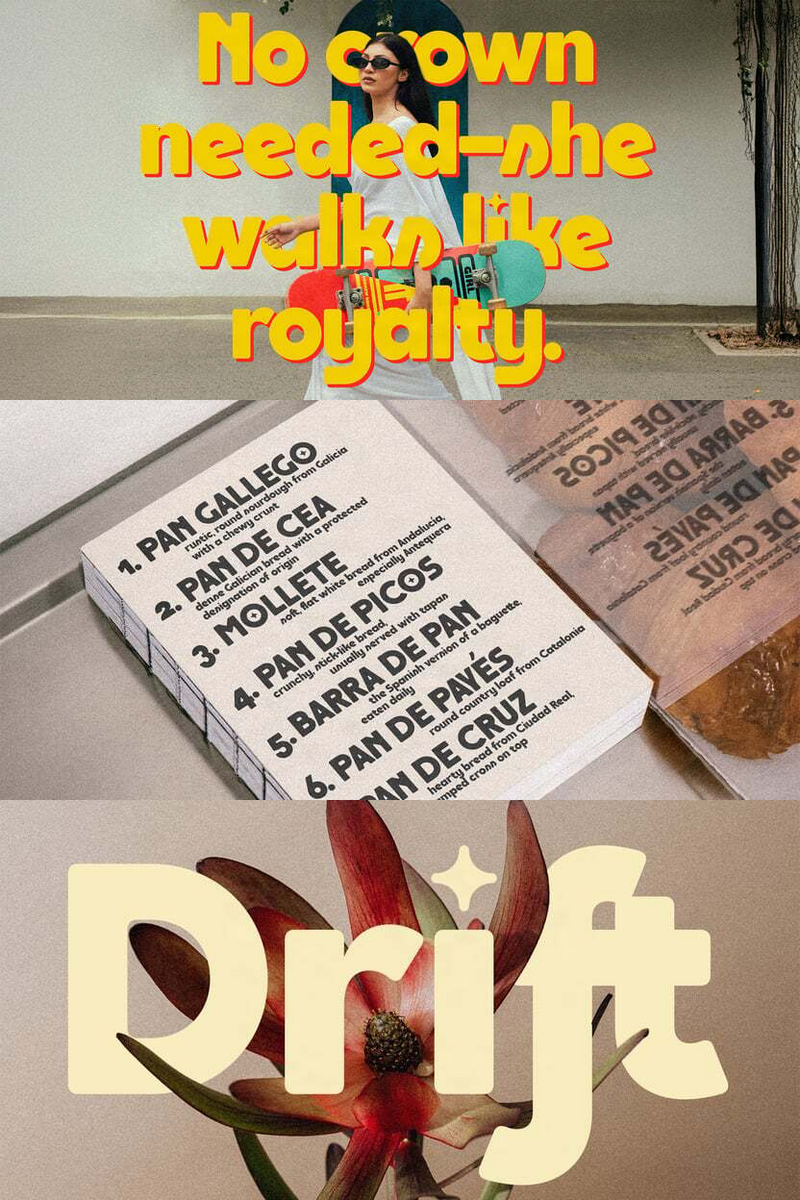
Want your fashion brand's logo to tell a timeless story, rich with heritage? Is SLTF Saffielle's nostalgic charm the key to unlocking that authentic vintage feel for your emblems and wordmarks?
Ever wanted your brand to feel like a cherished discovery, a piece of history that’s perfectly timeless? You know, like finding that exquisite vintage silk scarf or stumbling upon a classic album that just gets you?
Well, picture this: a font that breathes that exact kind of soulful nostalgia. Meet SLTF Saffielle. It’s not just a set of letters; it’s a warm, authentic embrace from an era gone by, yet perfectly at home in today’s luxury landscape. Think gentle curves that flow like a well-worn story, subtle details that hint at handcrafted artistry, and a charm that feels instantly familiar, like a beautiful memory resurfacing.
For you, in the world of fashion and luxury, it’s all about creating an experience, a legacy. Your brand isn't just selling products; it's selling a dream, an aspiration, a connection to something deeper. In a sea of sleek, minimalist aesthetics, how do you stand out and truly resonate with discerning customers who crave authenticity and heritage? This is where SLTF Saffielle shines. It allows your brand to whisper tales of craftsmanship, tradition, and enduring style, setting you apart with a unique visual voice that speaks volumes without shouting.
So, what’s the real magic? SLTF Saffielle helps you forge an instant emotional connection. It’s about building trust and familiarity, making your brand feel established and genuinely loved from the first glance. It adds a layer of depth and narrative to your visuals, transforming a simple wordmark into a storied emblem. You're not just putting text on a page; you're imbuing your brand with a heart and a soul that feels truly inimitable.
Imagine SLTF Saffielle gracing the bespoke label of a couture garment, or subtly embossed on the packaging of a high-end, artisan-crafted leather good. It’s perfect for creating distinctive logos that feel like family crests – perhaps for a heritage watch brand’s monogram, or a luxury perfume house’s classic wordmark. And it truly shines in your digital storytelling: think elegant website headers, captivating social media campaigns that evoke timeless allure, or the opening titles of a brand film. Even in print, from exclusive lookbooks to sophisticated hang tags, SLTF Saffielle ensures your message isn't just seen, but felt.
SLTF Saffielle: The Soul of Vintage, For Your Modern Brand.